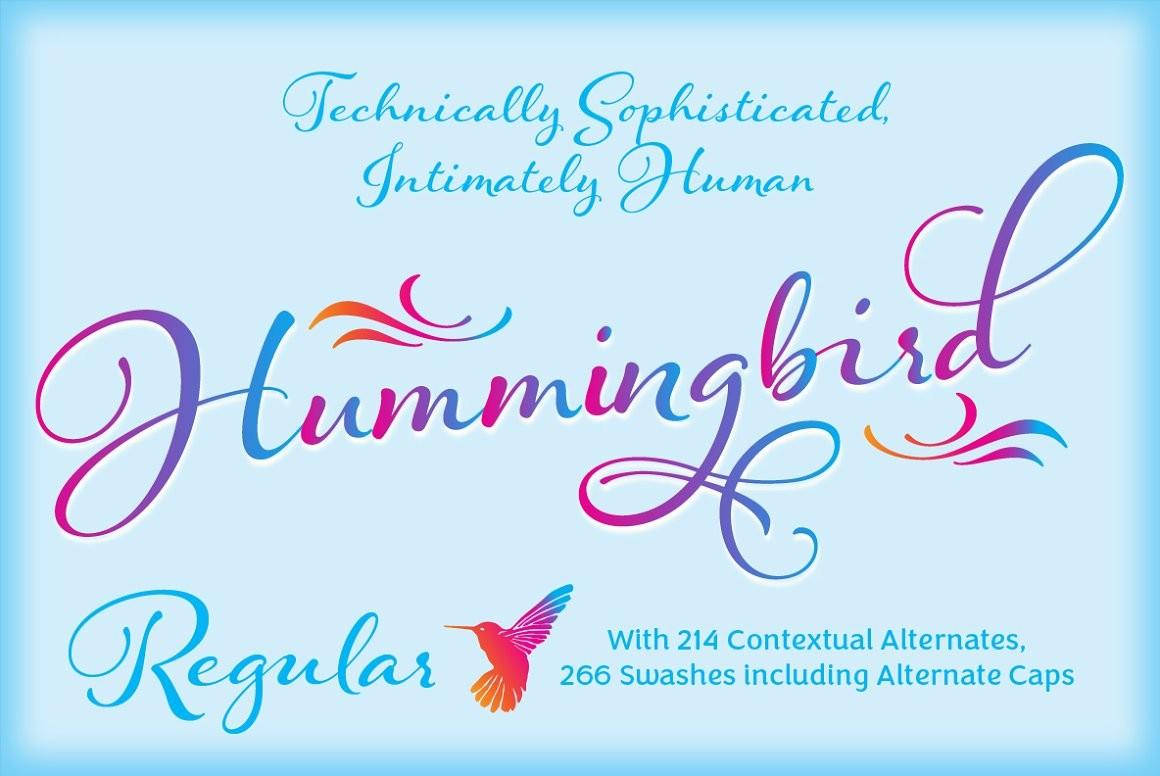
Hummingbird Family Font Description
Hummingbird is reminiscent of old-fashioned cursive penmanship, the sort learned by endless repetition and found in treasured letters bundled together by silken ribbons or in worn leather-bound ledgers. The aim, across the past few centuries, was a graceful, yet disciplined uniformity. But to the discerning eye, those hours of painstakingly practiced elegant scripts were still, at their essence, thoroughly human, filled as they were with unintentional variations in pressure, contrast, and fluidity. My typeface, Hummingbird, uses technical sophistication to bring us a typeface that is lovely, sensual, airy, personal, and, in its sensitively wrought irregularities, as innately and intimately human as the writer’s hand and pen. CONTEXTUAL ALTERNATES A unique feature of Hummingbird is its impressive number of these subtle variations, known as contextual alternates. If you’re not a typographer, or familiar with the term, consider this: Type a letter, and its appearance will vary depending on its placement and adjacent letters. Will it end the sentence and require a finishing out-stroke, a little flourish that says, “This word has played its part.”? Will it be a “b” sandwiched between a “g” and an “i”? The contextual alternate avoids the rote rigidity of digital production and, instead, turns to the human hand and habit for its answer. A long upsweep from the base of the “g” transform into the curving ascender of the “b,” and then a tender little curve connects the end of the “b” to the beginning of the following “i.” Some letters have different beginning forms, all have different ending forms, and with double letter occurrences, one of the letters will use the alternate. Some letters are semi-connected. The alternates bring a flowing randomness to the typeface, tempered by their reference to a more natural handwritten appearance, rather than acting as a sort of decorative embellishment. Hummingbird has 214 contextual alternates.
The font also has 266 swashes that include an entire set of decorated uppercase letters that add personality, emphasis, and beauty.
OFF OR ON? When should you turn off contextual alternates? As a designer, you’ll have a feel for this. Depending on your readership, some may not notice the subtleties, yet their visceral response may differ when they view your work. Without contextual alternates, the typeface looks a bit more structured and consistent, less random and natural; it will still be more approachable than a traditional formal script, yet retaining its own airy charm. Contextual alternates do not appear as a web font, but they function by default for print work in software like InDesign, or for logo or other illustrative work in Photoshop, Illustrator and others. Check your software; your mileage may vary.
PROCESS My process is intuitive and iterative. I start with an idea that evolves, taking detours and different directions, moving forward and back until I have something that is quite different from my initial concept. Think of the fine artist who begins with a blank canvas that becomes layer after layer of paint. Walk into her studio each day and the work on the canvas changes, sometime dramatically, telling a different story with each layer. Despite the precision required of my finished fonts, I often feel my way there in my sketches using brushes and pens, not sure where the journey will end. Most of my work is done in studio, but I’ll also do the earlier conceptual and sketchbook work out in the country. I will gesturally draw the same letters over and over again, so many times that I can create each one based on muscle memory. Pencil is great for this; it’s easy to do huge, gestural swoops.
Two stories came together as I worked on Hummingbird. First, I’d used gel pens to decorate a cake and loved the sensuality, the fluidity and the syrupy gooeyness of it. I was attracted to the tactility, the rhythmic ebb and flow of a substance that was like thick water—I yearned to immerse my hands in it. It differed strikingly from much of my work which is more sharp and angular. I found that I couldn’t mimic the softness and fluidity using only a brush and pen. I also knew that ultimately this sense of something free-flowing would need to be captured and confined within the constraints of square pixels. I did a great deal of experimentation, transforming my feeling, my sense of tactility into something digital. Because this was so flowing rather than angular, I needed to use that repetitive/muscle memory technique even more than I usually do. Typically, I’m much more deliberate in my process.
The second story entwined here was that I wanted to play with something a bit more relaxed than my body of work. As I sketched, I watched hummingbirds flit about the plants I’d cultivated specifically to attract them. I noted how tiny they were and then looked at how small the x-height of my typeface is compared to much of the lettering we see. The birds zoomed among the towering trees and I saw that polarity reflected in the typeface: gracious large letters contrasted with small, delicate lowercase letters, giving the font more style and impact than something more structured. The resemblance between nature and my lettering was both unintentional and authentic.
I strove for a sense of openness, allowing more space between letters, avoiding density and high contrast. I aimed for a finished typeface that would be delicate, airy, charming: a modern face with a twist of nostalgia.
TECHNICAL INFORMATION Typically a display and titling font, Hummingbird supplies a full User’s Guide with your download, explaining use of contextual alternates, swashes, and how to access Open Type features.